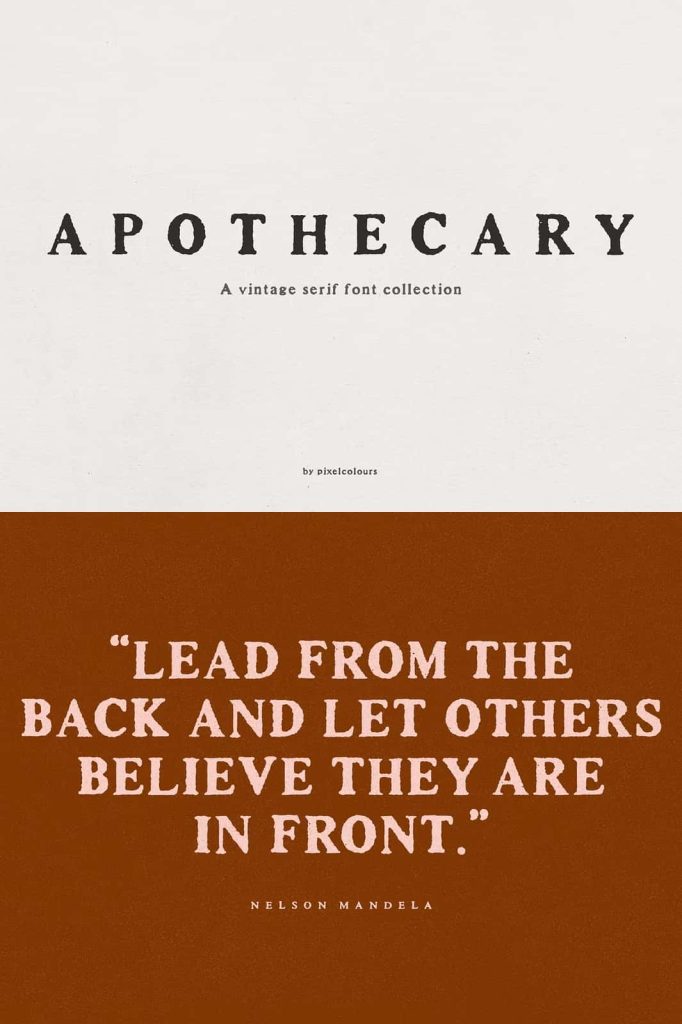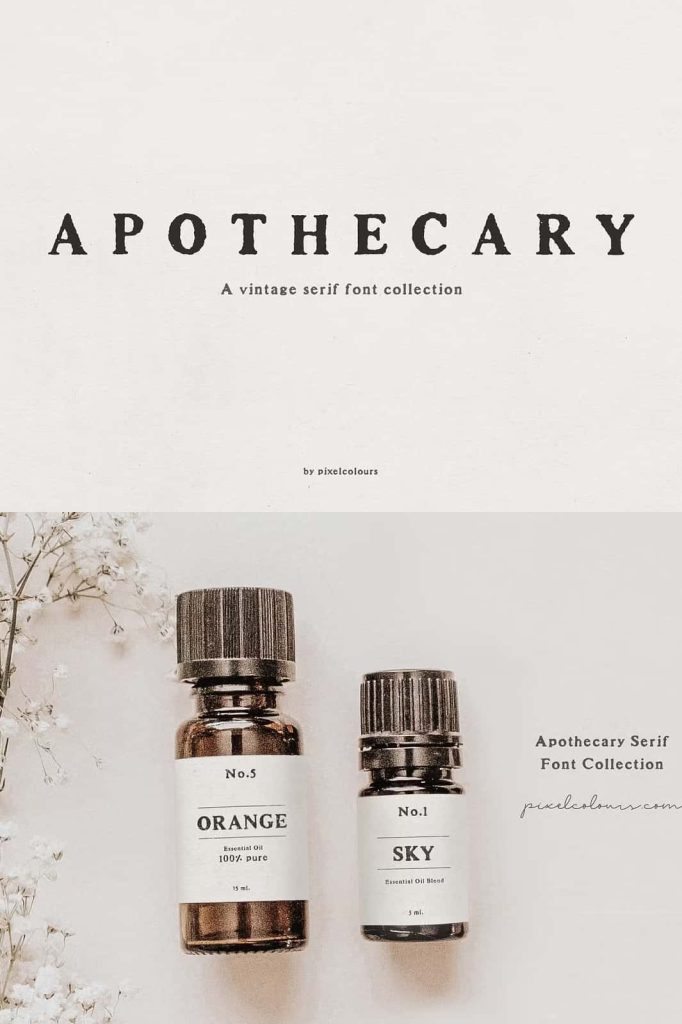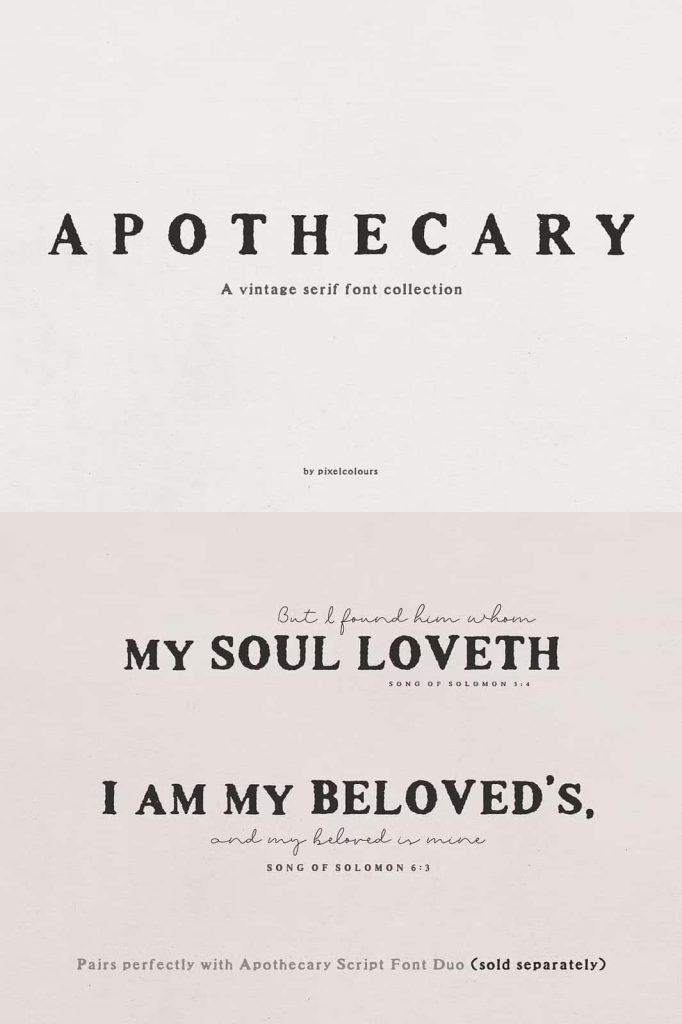
Apothecary Serif – A Vintage-Inspired Font Collection with Timeless Elegance
Apothecary Serif is a beautifully crafted serif font collection inspired by vintage typography and antique prints. Designed to capture the essence of traditional craftsmanship, this typeface blends the sophistication of old-world design with the clarity and versatility needed for modern use. Its elegant letterforms and classic structure make it a perfect choice for those who wish to bring a touch of nostalgia and authenticity to their creative projects.
Whether used for headlines, body text, or logo design, Apothecary Serif font delivers a timeless character that elevates any composition. Its refined detailing and balanced proportions bring warmth and personality to text while maintaining professional precision. Perfect for designers who love the look of vintage print but need modern usability, Apothecary Serif brings history back to life in every letter.
Inspired by Vintage and Antique Printing Styles
Apothecary Serif draws its inspiration from classic print design traditions, capturing the charm and texture of letterpress and engraved typography. The font’s foundation lies in the historical craftsmanship of apothecary labels, book covers, and antique packaging—where elegance met practicality. Each letter carries subtle imperfections and unique contours that mimic the feel of ink pressed into aged paper.
This attention to detail gives Apothecary Serif font a distinct vintage soul while keeping it versatile enough for modern applications. It’s a celebration of the beauty found in classic typography, reimagined for today’s digital world. The result is a typeface that feels authentic, approachable, and enduring.
Perfect for Texts, Headings, and Pairing Fonts
Apothecary Serif is designed with balance in mind. Its adaptability allows it to shine both as a display font for striking headlines and as a text font for readable paragraphs. The contrast between bold serifs and smooth curves ensures visual harmony, while its vintage influences give it a distinctive personality.
Designers love pairing Apothecary Serif with modern sans-serifs or handwritten scripts to create unique typographic combinations. Whether for digital branding or printed materials, its versatility ensures it complements a wide variety of design aesthetics.
Key Features of Apothecary Serif Typeface
- Vintage-Inspired Design: Rooted in the beauty of antique typography and traditional letterpress styles.
- Elegant Serif Details: Classic serifs combined with balanced proportions for both style and readability.
- Versatile Applications: Ideal for headlines, body text, quotes, and branding materials.
- Perfect Pairing Font: Works beautifully alongside modern and decorative typefaces.
- High Legibility: Clean structure and precise spacing make it easy to read across print and digital formats.
Ideal for Designers Seeking Vintage Character
Apothecary Serif font is perfect for anyone who values the artistry and charm of traditional design. It’s an exceptional choice for projects that require a vintage touch without compromising clarity or elegance. Its classic aesthetic works beautifully across various mediums and industries.
Here are some popular design uses for Apothecary Serif:
- Design Quotes: Add sophistication and emotion to your typographic compositions.
- Packaging Design: Create heritage-inspired labels and product packaging that exude authenticity.
- Wedding Invitations: Give your stationery a timeless and romantic appeal.
- Editorial Layouts: Enhance book covers, magazines, and articles with vintage elegance.
- Branding: Build memorable brand identities with a nostalgic yet professional tone.
Each use showcases the typeface’s adaptability and classic appeal. Apothecary Serif bridges past and present design sensibilities, offering endless creative potential for both modern and traditional projects.
Bring Vintage Style to Modern Design
In an era dominated by sleek minimalism, Apothecary Serif reintroduces the charm of handcrafted typography. Its elegant serifs and subtle texture allow it to stand out while maintaining a refined and sophisticated tone. When you use this font, you instantly infuse your designs with heritage, character, and storytelling potential.
Apothecary Serif’s visual rhythm and warm tone make it especially suitable for boutique branding, artisanal products, and nostalgic campaigns. It’s a font that speaks to emotion and craftsmanship, perfect for brands that want to convey quality and tradition in a modern context.
Why Choose Apothecary Serif Font
Choosing Apothecary Serif font means choosing a typeface that celebrates the elegance of the past while embracing the flexibility of the present. Its thoughtful design and historical influence give every project a unique personality. This font isn’t just about aesthetics—it’s about creating atmosphere, identity, and emotional connection.
Conclusion
Apothecary Serif is a vintage-inspired serif font collection that blends historical charm with modern usability. Inspired by antique prints and traditional craftsmanship, it’s perfect for texts, headings, and pairing with other fonts. Whether you’re designing quotes, packaging, wedding invitations, or branding, Apothecary Serif brings a touch of authenticity and elegance to every creative project. Let your designs evoke the timeless beauty of classic typography with the enduring sophistication of Apothecary Serif.